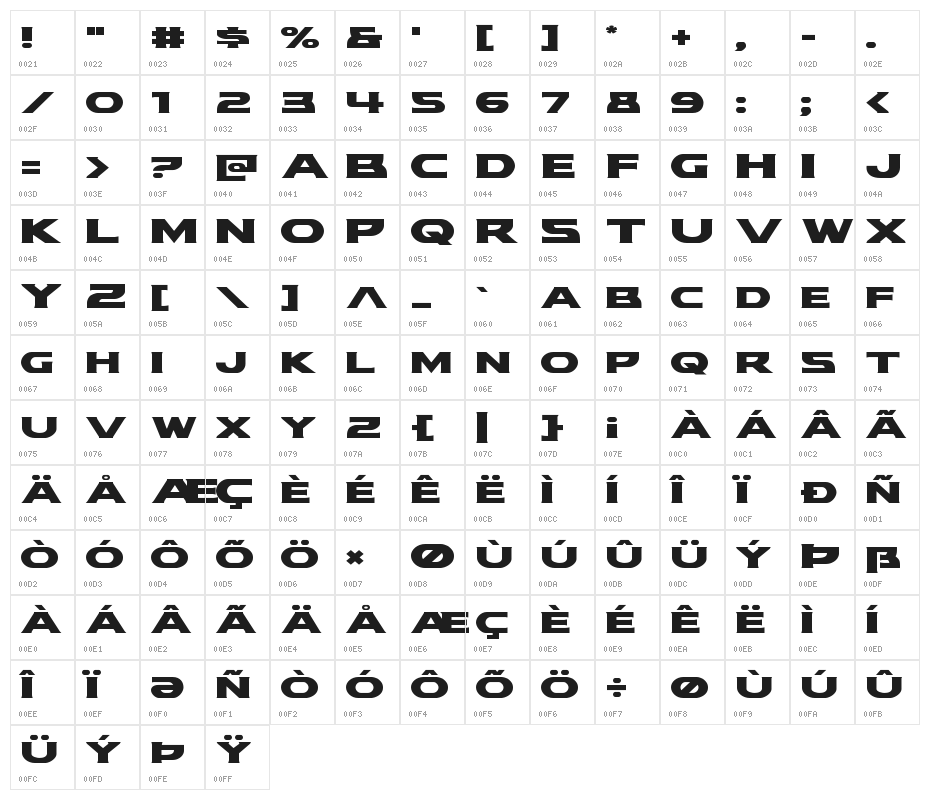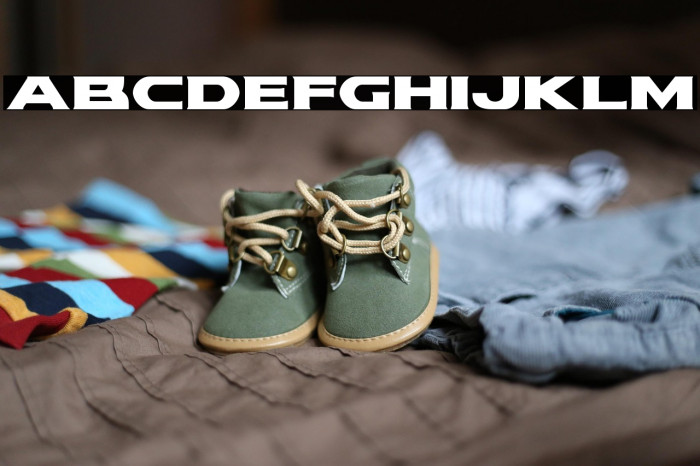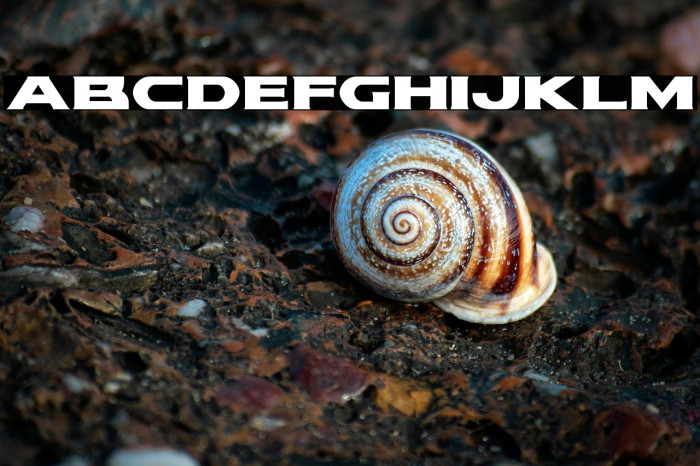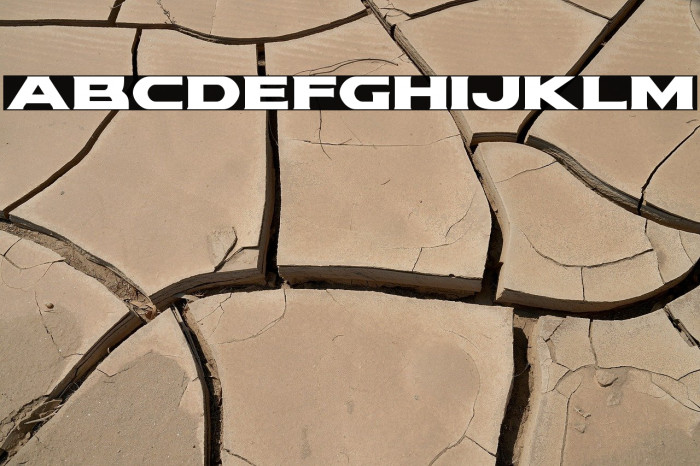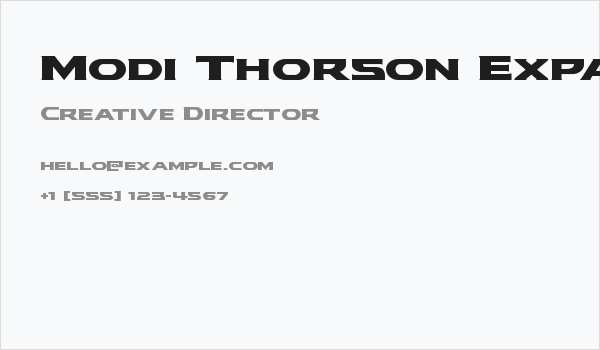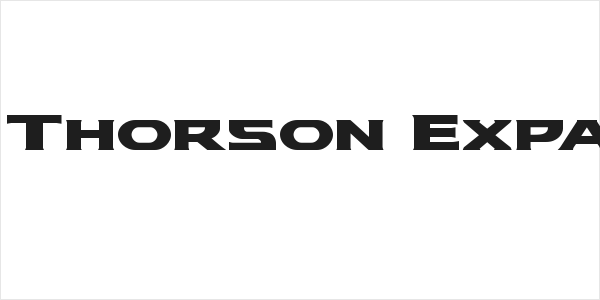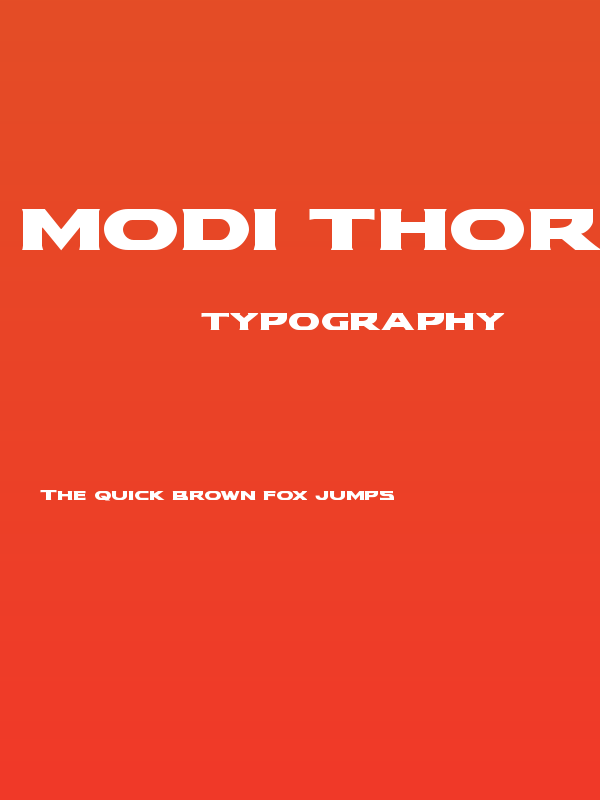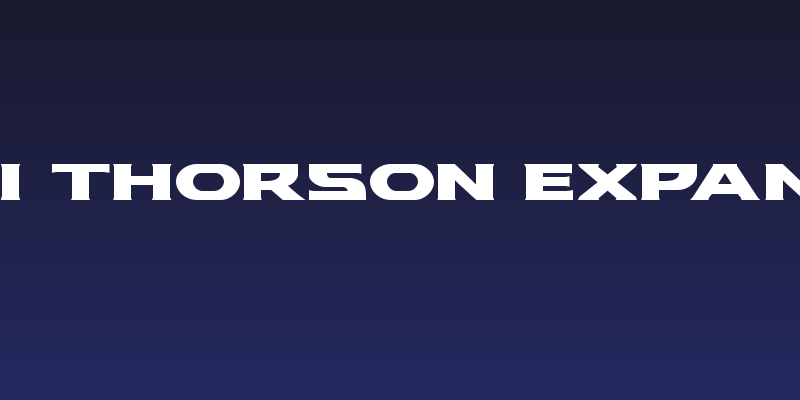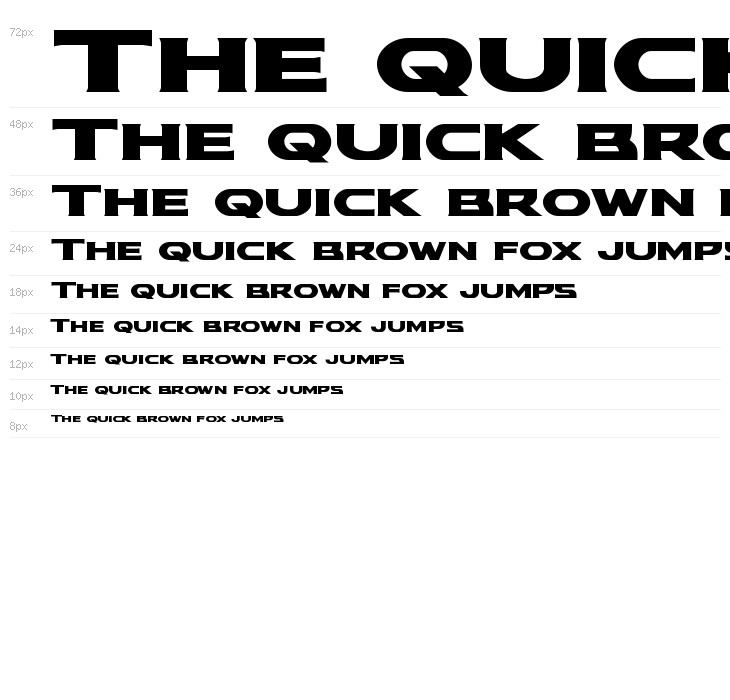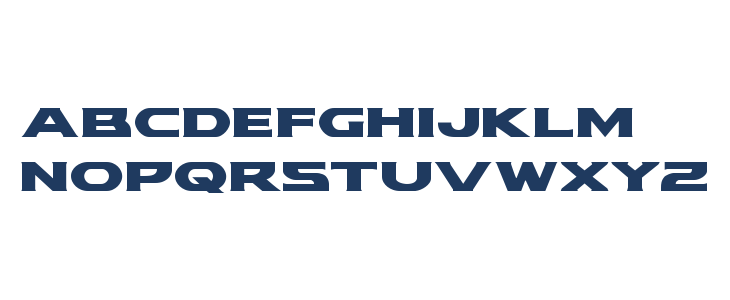
Modi Thorson Expanded Font
Modi Thorson Expanded Description
This font features a bold and striking design with a distinctly modern and futuristic aesthetic. The characters are wide and expanded, giving them a commanding presence. The angular and geometric shapes of the letters contribute to a sense of strength and dynamism. The uppercase letters are particularly prominent, with sharp edges and a consistent thickness throughout. The numerals and special characters maintain the same bold style, ensuring uniformity across all elements. This font is ideal for projects that require a strong visual impact, such as branding, advertising, or digital media.
| Proposed Projects | Ideal for branding, advertising, digital media, and any project requiring a strong visual impact. |